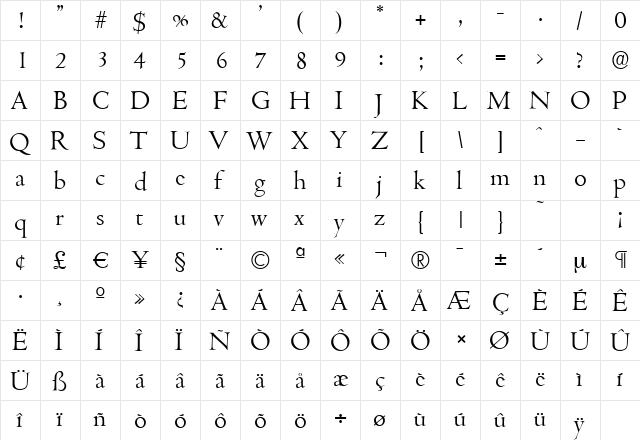
CambridgeSerial-Light Regular Font Preview
CambridgeSerial-Light Regular
CambridgeSerial-Light Regular Font Details
Design Context for CambridgeSerial-Light Typeface
CambridgeSerial-Light takes a measured approach to typography — its balanced proportions and neutral character make it a reliable workhorse for both digital and print work. The delicate stroke weight brings airiness and refinement to layouts.